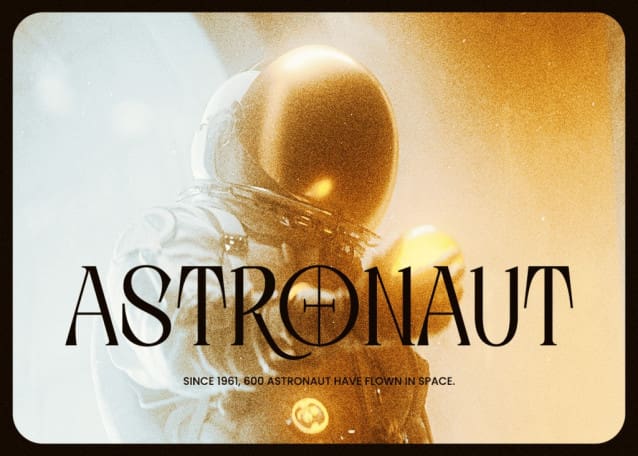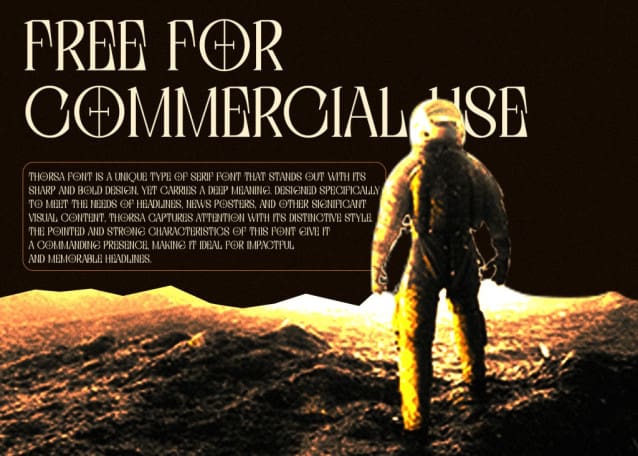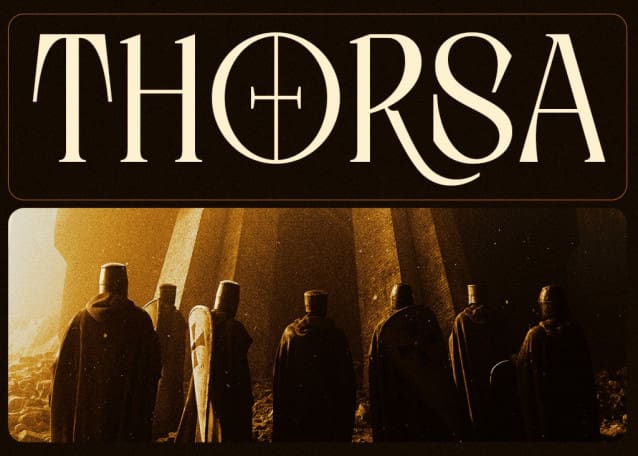
THORSA TYPEFACE
Thorsa Typeface is a unique type of serif font that stands out with its sharp and bold design, yet carries a deep meaning. Designed specifically to meet the needs of headlines, news posters, and other significant visual content, Thorsa captures attention with its distinctive style. The pointed and strong characteristics of this font give it a commanding presence, making it ideal for impactful and memorable headlines.